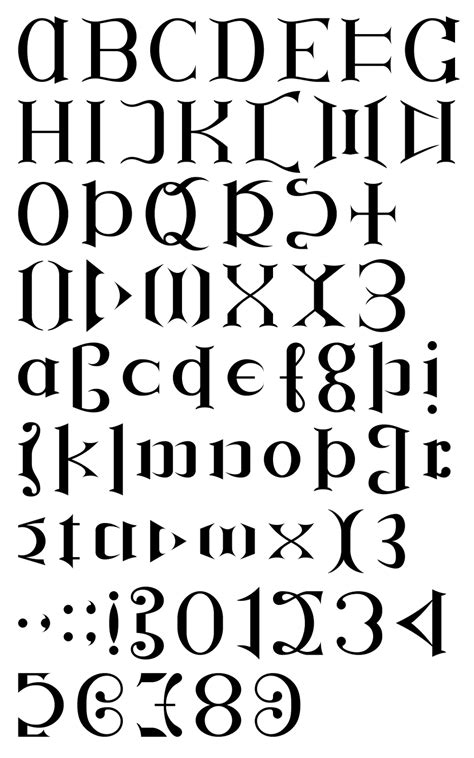
Tattoo Fonts Net Ambigram, I think this ambigram tattoo design is made by a german tattoo artist and this is probably a german word. Tattoo designs are extremely popular, but unfortunately most of the designs you find around the walls in tattoo shops and everything over the internet have all already been done in one font, and something font only, ‘old english’ obviously this is a very beautiful typeface and obviously extremely popular, but if you act like you like me and you prefer to be different i.
60 best free ambigram generators that you can use to create ambigram art. Ambigram tattoos are tattoos with words that reflected have been flipped or inverted. The “illuminati” ambigram in the book (and movie) launched thousands of online searches about the nature of…
They make for fascinating tattoo lettering. Ambigram tattoos are tattoos with words that reflected have been flipped or inverted. This means that each ambigram font contains 676 ambigram glyphs. I think this ambigram tattoo design is made by a german tattoo artist and this is probably a german word.
40 cool ambigram tattoo ideas an ambigram is a form of typographical art that allows one word to be read in more than one direction where the word reads the same when upside down or turn over to form an. Ambigrams are words or names which when rotated 180 degrees either still say the same thing or say something different..
Ambigrams are words or names which when rotated 180 degrees either still say the same thing or say something different. 25 creative examples of ambigram logo designs sans the plot itself, possibly the most rousing effect of dan brown’s angels and demons is its mark in the world of ambigrams. If you do not already have an artist, you may.
The following tool will convert your text into graphics using ambigram fonts. You can then save the image, or use the embed button to. Ambigram tattoo generators generate only rotational ambigram tattoo pictures and you can create the mirror image with old english and script styles check your word doc for these font. This means that each ambigram font contains.
Ambigram tattoo generators generate only rotational ambigram tattoo pictures and you can create the mirror image with old english and script styles check your word doc for these font. Ambigram tattoo ideas 3 designs father ambigram find tattoo design tattoos for men for women best meaningful. Courage ambigram tattoo instant download (design + stencil) style: Below you can find our.
Ambigram tattoo ideas 3 designs father ambigram find tattoo design tattoos for men for women best meaningful. Mark palmer world famous ambigram tattoo artist since 2005 mark palmer s ambigram artwork has been tattooed millions of times all over the world. Ambigrams are words or names which when rotated 180 degrees either still say the same thing or say something.
There are few free ambigram generator available on the internet that you can use to create ambigram designs for tattoos, although you can do it by looking for a specific fonts, ambigram generator will make it easier to create tattoo designs quickly. Alternatively, select a page from the menu above for more information about ambigrams. This is just one tattoo.
In some cases they will be the same correct word or name when perused in either bearing. The letter of this typeface is great and mostly seen inside photoshop and mobile apps. They make for fascinating tattoo lettering. Mark palmer world famous ambigram tattoo artist since 2005 mark palmer s ambigram artwork has been tattooed millions of times all over.
An ambigram is a typographical creation that presents two or more separate words within the same physical space. The following tool will convert your text into graphics using ambigram fonts. If you do not already have an artist, you may ask them for some time so you can work together and create one of the biggest and best tattoos according.